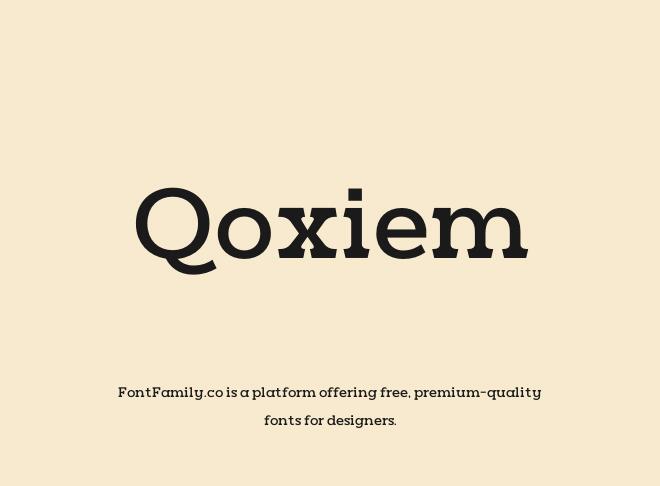
Qoxiem Font
Meet Qoxiem Font, a modern and geometric typeface from the creative house of John Doe Design Studio. With its minimalistic and elegant design, it's the perfect choice for a wide range of projects from logos and branding to web design and print media. Its sharp, clean lines and perfectly balanced letterforms make it a standout choice for both display and text usage. Comparable to popular sans-serif fonts, yet boasting its unique character, Qoxiem brings a fresh and contemporary feel to any design. The font is easy to read, versatile, and adds a professional touch to your work. It's free for personal use, making it a great choice for individual designers and small businesses looking to make a strong visual impact.
Author | John Doe Design Studio |